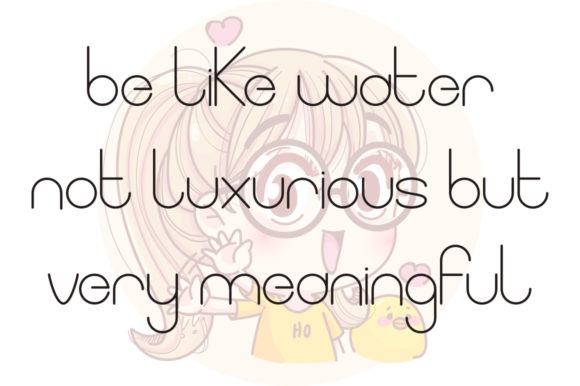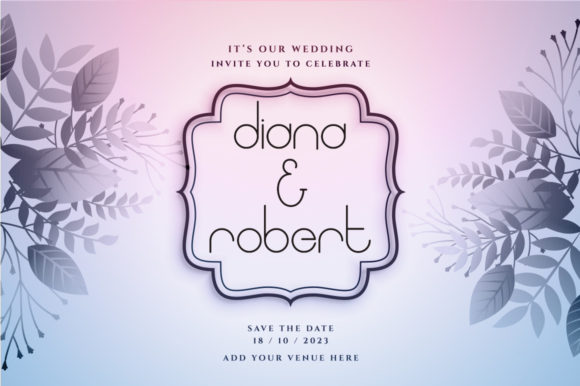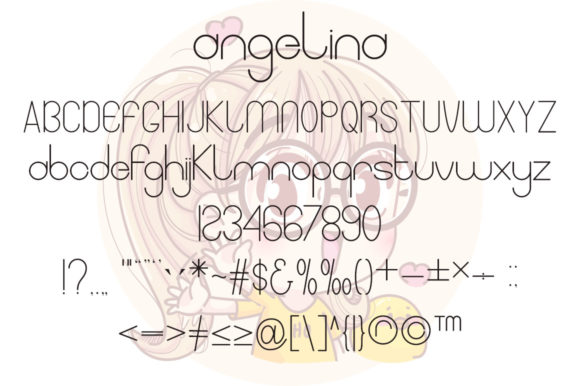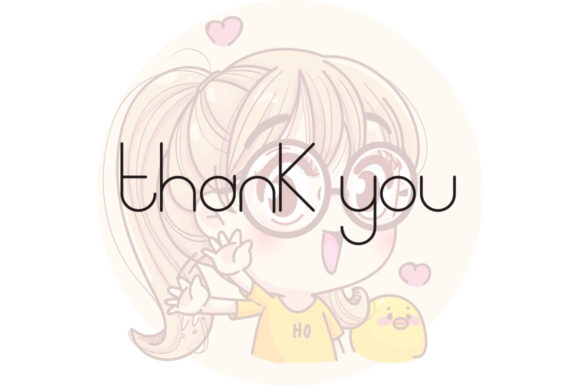
Introducing Angelina Font: Elevate Your Designs with Elegance
Are you on the hunt for a font that embodies elegance, simplicity, and versatility? Look no further than Angelina Font, a stunning sans serif font that is sure to take your creative projects to the next level. With its thin, delicate, and round lettering, Angelina Font is the perfect addition to any designer’s toolkit.
What Makes Angelina Font So Special?
Angelina Font is a thin, delicate, and round lettered sans serif font that boasts a unique charm. Its slender lines and curves create a sense of sophistication and refinement, making it an excellent choice for a wide range of projects. Whether you’re working on a logo, branding materials, packaging, or digital content, Angelina Font is sure to make your designs stand out.
Key Features of Angelina Font
- Thin and delicate lettering: Angelina Font’s slender lines create a sense of elegance and refinement.
- Round lettering: The font’s rounded edges add a touch of warmth and friendliness to your designs.
- Sans serif: The clean and minimalist sans serif design makes Angelina Font highly versatile and easy to read.
- Highly legible: The font’s clear and simple design ensures that your text is easy to read, even at small sizes.
One of the best things about Angelina Font is its incredible versatility. Its clean and elegant design makes it suitable for a wide range of projects, including:
- Logo design: Create a stunning logo that showcases your brand’s personality and style.
- Branding materials: Use Angelina Font to create business cards, letterheads, and other marketing materials that exude elegance and sophistication.
- Packaging design: Add a touch of luxury to your product packaging with Angelina Font.
- Digital content: Use the font to create engaging and easy-to-read digital content, such as blog posts, social media graphics, and more.
- Crafting and DIY projects: Add a personal touch to your crafting and DIY projects, such as handmade cards, invitations, and scrapbooking.
Tips for Using Angelina Font
To get the most out of Angelina Font, here are a few tips to keep in mind:
- Pair with bold fonts: Combine Angelina Font with bold fonts to create visual interest and contrast.
- Use for headlines and titles: Take advantage of Angelina Font’s elegance and sophistication by using it for headlines and titles.
- Experiment with colors: Try pairing Angelina Font with different colors to create unique and eye-catching designs.
In conclusion, Angelina Font is a stunning sans serif font that is sure to elevate your designs with its elegance, simplicity, and versatility. With its thin, delicate, and round lettering, Angelina Font is perfect for a wide range of projects, from logo design and branding materials to packaging and digital content. Whether you’re a designer, crafter, or DIY enthusiast, Angelina Font is a must-have addition to your toolkit.